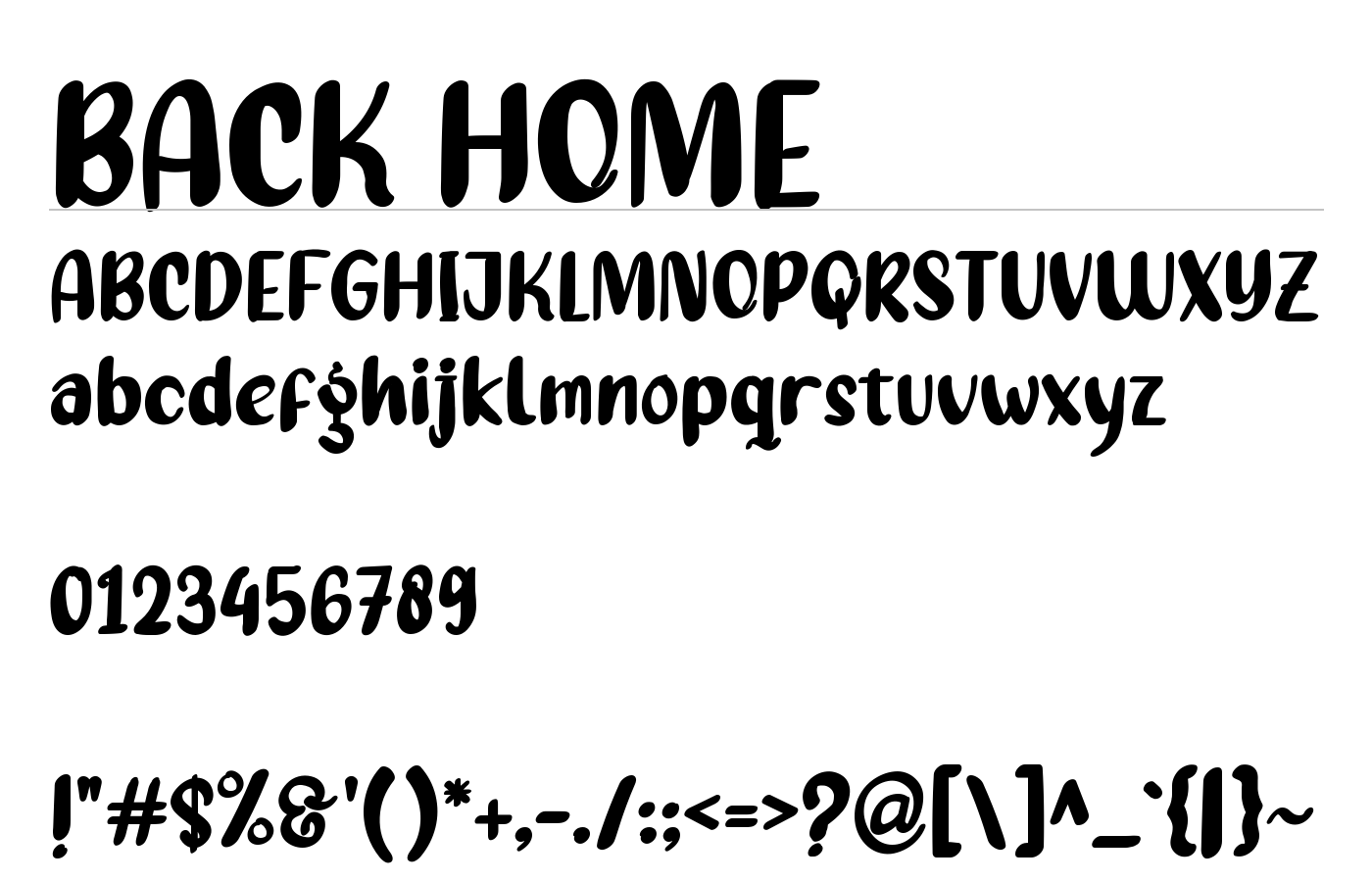
BACK HOME is a playful and rounded sans serif font with a hand-drawn, friendly feel. Its bold weight and quirky letterforms create a casual, approachable style perfect for creative branding, informal headlines, and fun packaging projects. This font works best where a warm, inviting tone is needed, bringing a sense of personality and fun without sacrificing readability.
BACK HOME Font
About BACK HOME Font